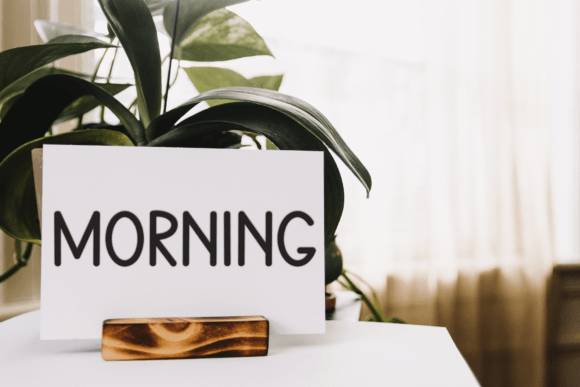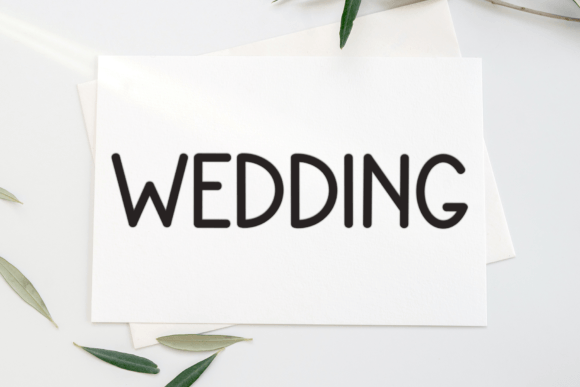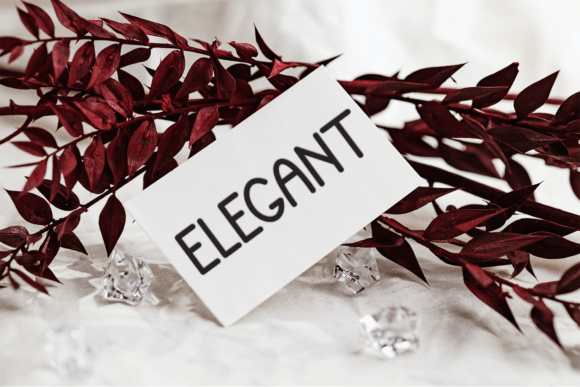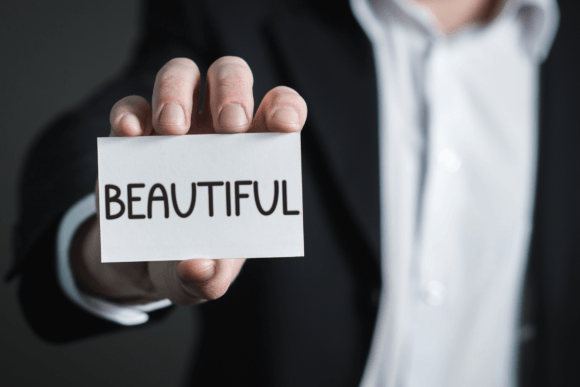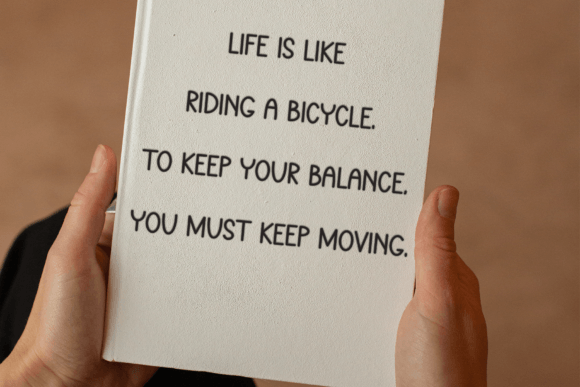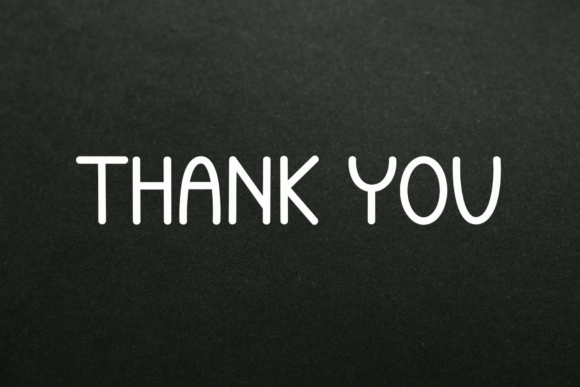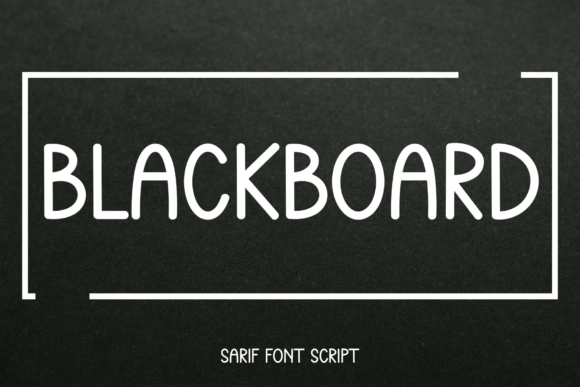
Discover the Versatility of Blackboard Font: A Modern Display Font for Every Occasion
Are you tired of using the same old fonts for your designs, crafts, and presentations? Look no further than the Blackboard Font, a cool and modern display font that’s perfect for a variety of projects. Whether you’re a designer, crafter, or simply someone who loves to create, this font has the potential to become your go-to choice for any occasion.
What is Blackboard Font?
Blackboard Font is a modern display font that’s designed to resemble the classic blackboard look. With its bold, yet elegant design, this font is perfect for making a statement in any project. Its versatility and flexibility make it suitable for a wide range of applications, from digital designs to handmade crafts.
Key Features of Blackboard Font
- Unique Design: Blackboard Font features a distinctive design that’s reminiscent of traditional blackboards. Its bold lines and elegant curves make it perfect for creating eye-catching headlines and titles.
- Highly Legible: Despite its bold design, Blackboard Font is highly legible, even at small sizes. This makes it perfect for use in presentations, reports, and other documents where clarity is essential.
- Flexible: Blackboard Font is highly versatile and can be used in a variety of contexts, from digital designs to handmade crafts.
- Modern and Fresh: Unlike traditional blackboard fonts, Blackboard Font has a modern and fresh feel that’s perfect for contemporary designs.
Uses of Blackboard Font
Blackboard Font is perfect for a wide range of projects, including:
- Crafts: Use Blackboard Font to add a personal touch to your handmade crafts, such as greeting cards, scrapbook pages, and DIY decorations.
- Digital Design: Blackboard Font is perfect for digital designers who want to create bold and eye-catching graphics, social media posts, and website headers.
- Presentations: Add a touch of elegance and sophistication to your presentations with Blackboard Font.
- Greeting Cards: Create personalized and stylish greeting cards for any occasion using Blackboard Font.
Tips for Using Blackboard Font
Here are some tips for getting the most out of Blackboard Font:
- Experiment with Sizes: Blackboard Font looks great at a variety of sizes, from small and delicate to large and bold. Experiment with different sizes to find the one that works best for your project.
- Pair with Other Fonts: Blackboard Font pairs well with a variety of other fonts, including sans-serif fonts, script fonts, and serif fonts. Experiment with different pairings to find the one that works best for your project.
- Use in Combination with Images: Blackboard Font looks great in combination with images, particularly those with a vintage or distressed look.
Blackboard Font is a versatile and modern display font that’s perfect for a wide range of projects. Its unique design, high legibility, and flexibility make it a great choice for designers, crafters, and anyone who loves to create. Whether you’re using it for crafts, digital design, presentations, or creating greeting cards, Blackboard Font has the potential to become your go-to font for any occasion.
So why not give Blackboard Font a try? With its bold and elegant design, it’s sure to add a touch of sophistication and style to any project.